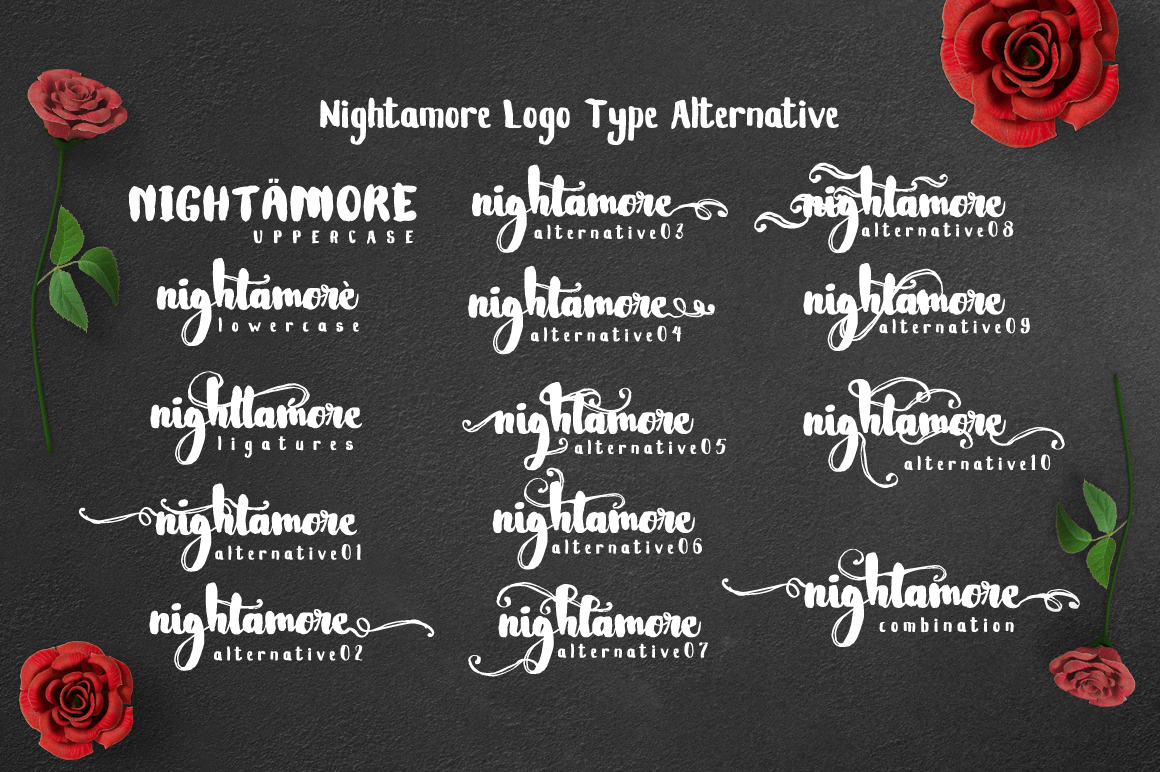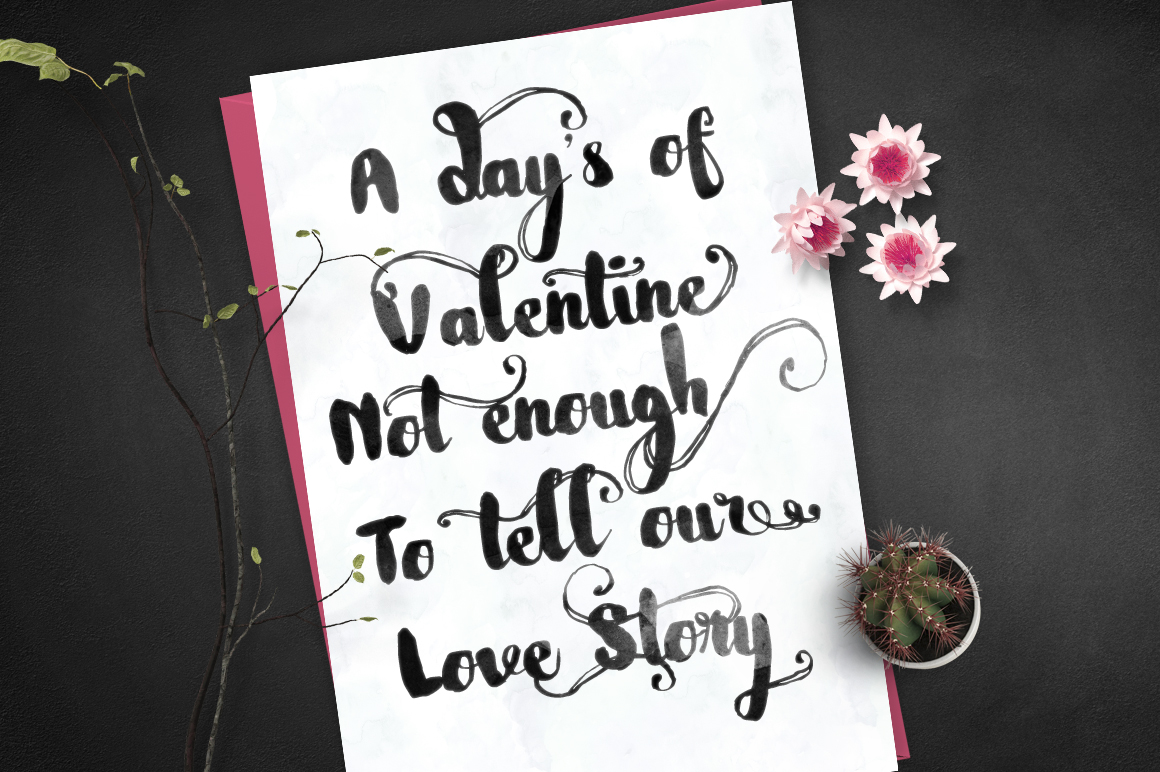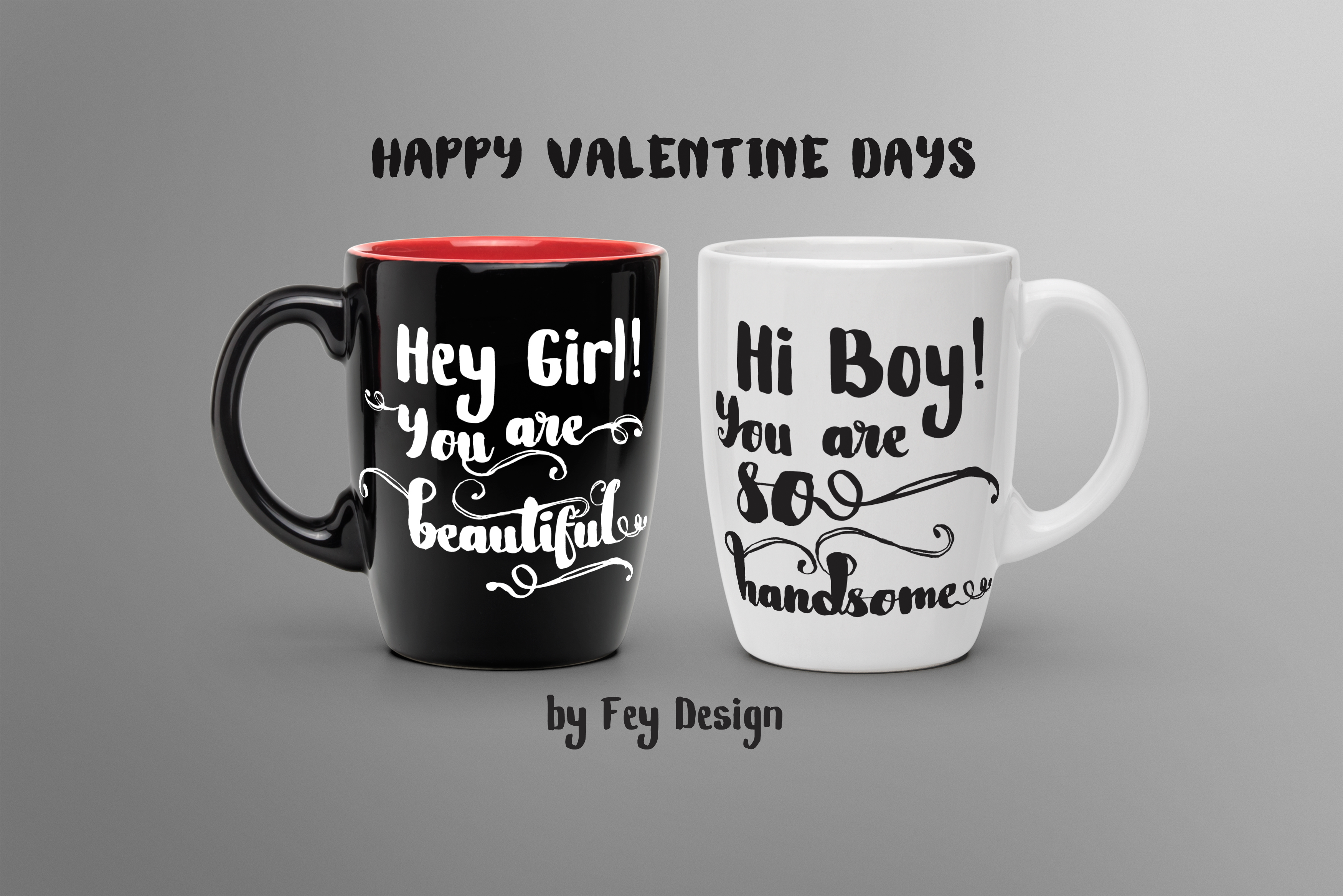
Introduction to Nightamore Font
Remember that moment when you’re brainstorming ideas for a creative project and you just can’t seem to find the perfect font to match your vision? You’ve spent hours scrolling through font libraries, trying out different styles, and still, nothing seems to fit. That’s where Nightamore Font comes in – a stunning, versatile font that’s sure to elevate your design to the next level.
With its sleek design and numerous styles, the Nightamore Font is an invaluable resource for designers looking to add a touch of sophistication to their projects. Whether you’re working on a free download or a paid design, this font is sure to impress. Its high-quality design and transparent background make it a perfect complement to any creative project, and its compatibility with other fonts means you can mix and match to create a truly unique look.
Key Features of Nightamore Font
- High-quality design resource perfect for creative projects, offering a unique and stylish aesthetic.
- Unique characteristics include elegant script, cursive, and handwritten styles, ideal for creating eye-catching typography.
Honest Review: Nightamore Font
The Nightamore Font did not disappoint. It’s a beautifully crafted font with a unique aesthetic that’s perfect for titles and headings. ✨ The transparent background makes it easy to use in various design contexts, from web design to print materials.
Here are some of the things that work well with the Nightamore Font:
- Unique and creative style
- Easy to use with transparent background
While the Nightamore Font is an excellent addition to any designer’s toolkit, there are a few limitations to be aware of:
- May not be suitable for body text due to its decorative nature
- Only available in a limited range of weights
- May require additional styling to achieve desired effects
Overall, I’m impressed with the Nightamore Font and would highly recommend it to designers looking for a unique and creative font for their next project.
Tips for Getting the Most Out of Nightamore Font
To get the most out of the Nightamore Font, experiment with different font sizes, styles, and colors. Use it in combination with other design resources to create unique and eye-catching designs. Don’t be afraid to try new things and push the boundaries of what’s possible with this high-quality font.
Common Use Cases for Nightamore Font
The Nightamore Font is ideal for a variety of creative projects, including social media graphics, presentations, logos, and typography. Its high-quality design and transparent background make it a versatile resource for designers and non-designers alike.